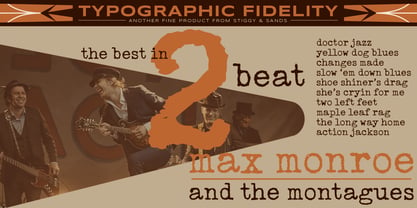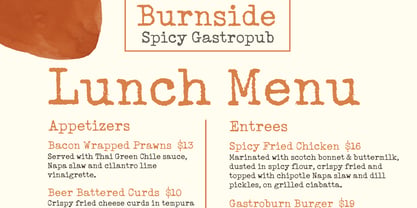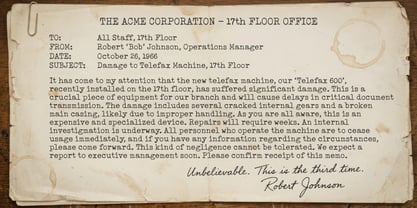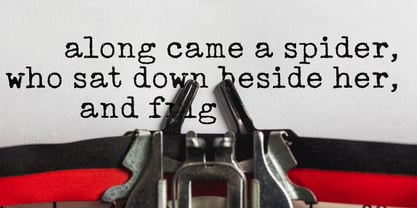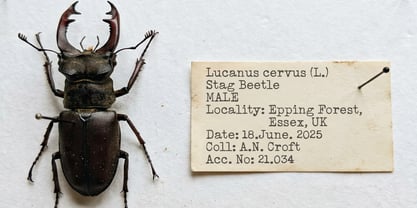
Distressed Telegraph
by Stiggy & Sands
The Distressed Telegraph Font Family was designed by Jim Lyles, Brian J. Bonislawsky and published by Stiggy & Sands. Distressed Telegraph contains 1 styles.
Distressed Telegraph Pro captures the distinctive character of the vintage Large Elite Type No. 44 typewriter keyset and translates its mechanical charm into digital form. Inspired by the imperfect impressions created when metal type struck ribbon and paper, the design preserves the irregular texture and warmth that made classic typewriters so expressive. Well suited for editorial design, vintage-inspired branding, book covers, posters, menus, and storytelling projects, Distressed Telegraph delivers authentic analog personality while remaining practical for modern layout work. The Pro feature set expands its capabilities with SmallCaps, multiple figure styles, inferiors and superiors for fractions, and stylistic alternates for additional typographic control.
Designers: Jim Lyles, Brian J. Bonislawsky
Publisher: Stiggy & Sands
Foundry: Stiggy & Sands
Design Owner: Stiggy & Sands